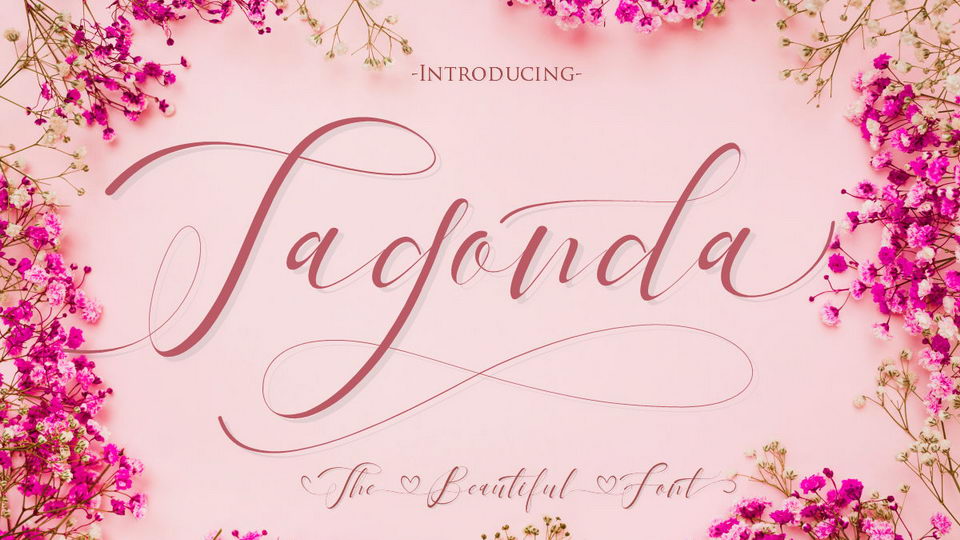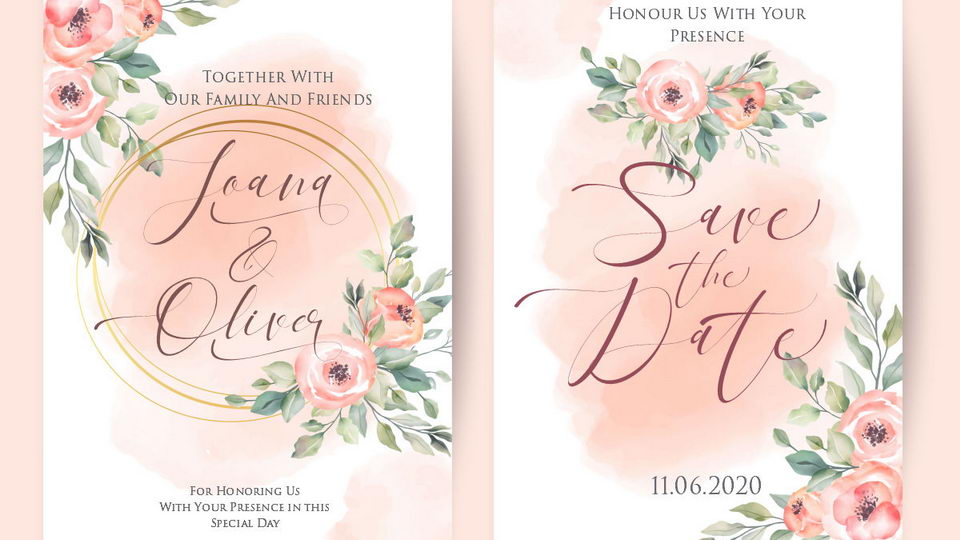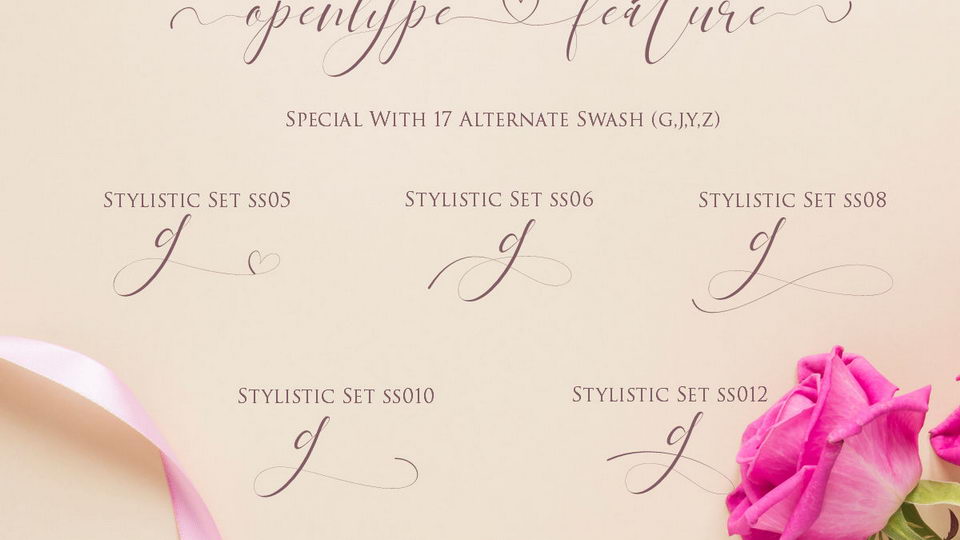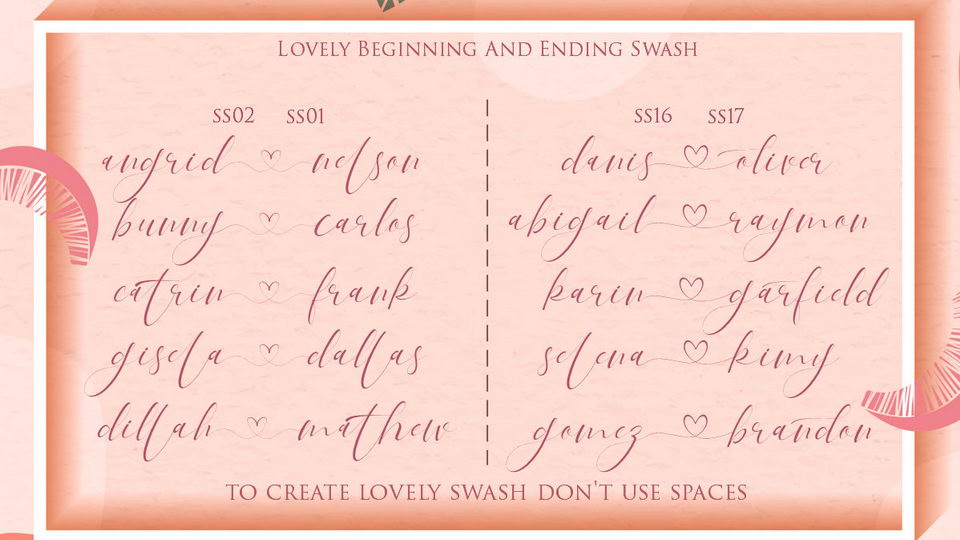
Tagonda is a beautiful modern calligraphy font with lovely swashes.
Tagonda is perfect for logo, invitation, stationery, wedding designs, social media posts, advertisements, label, photography, watermark, special events or anything.